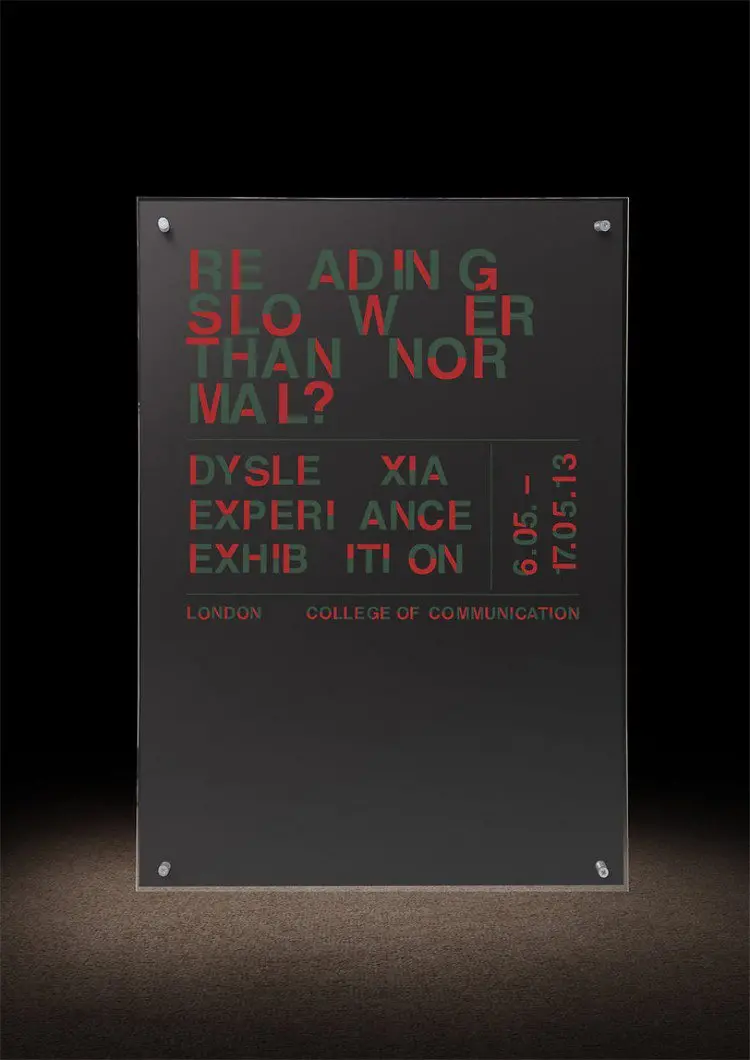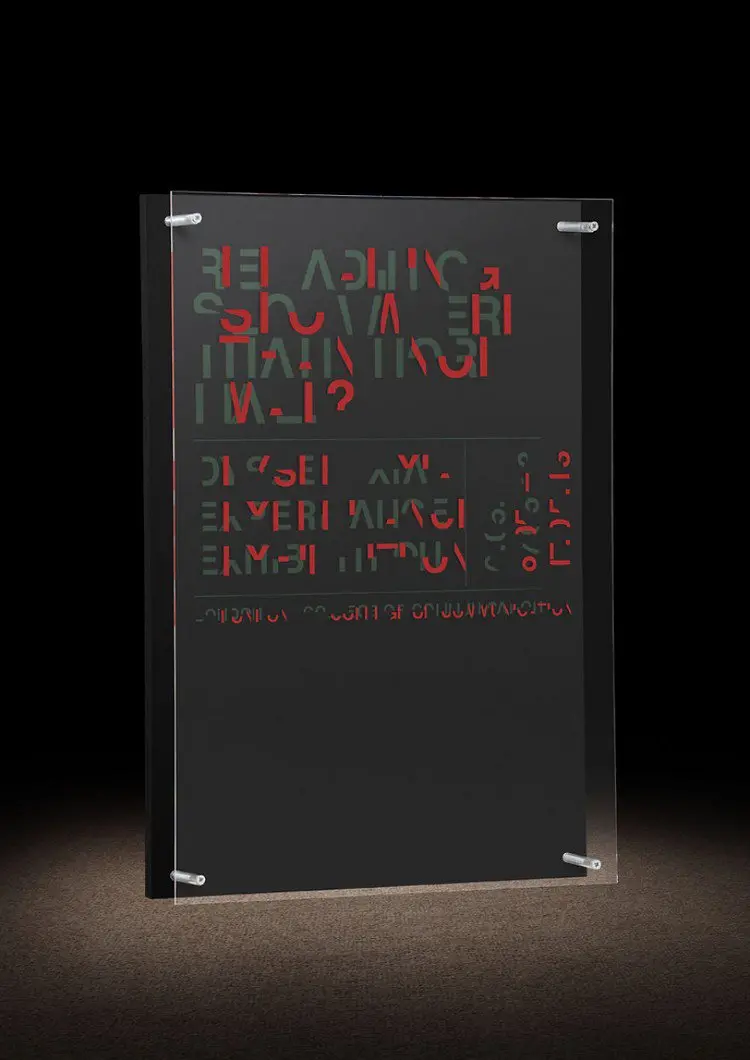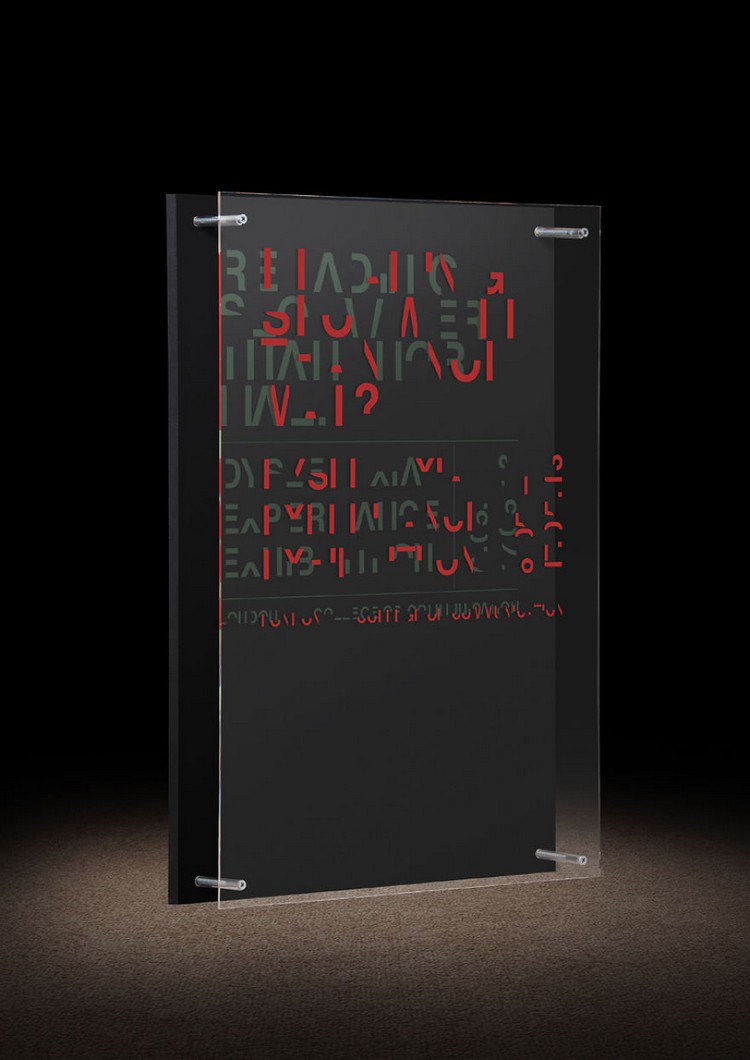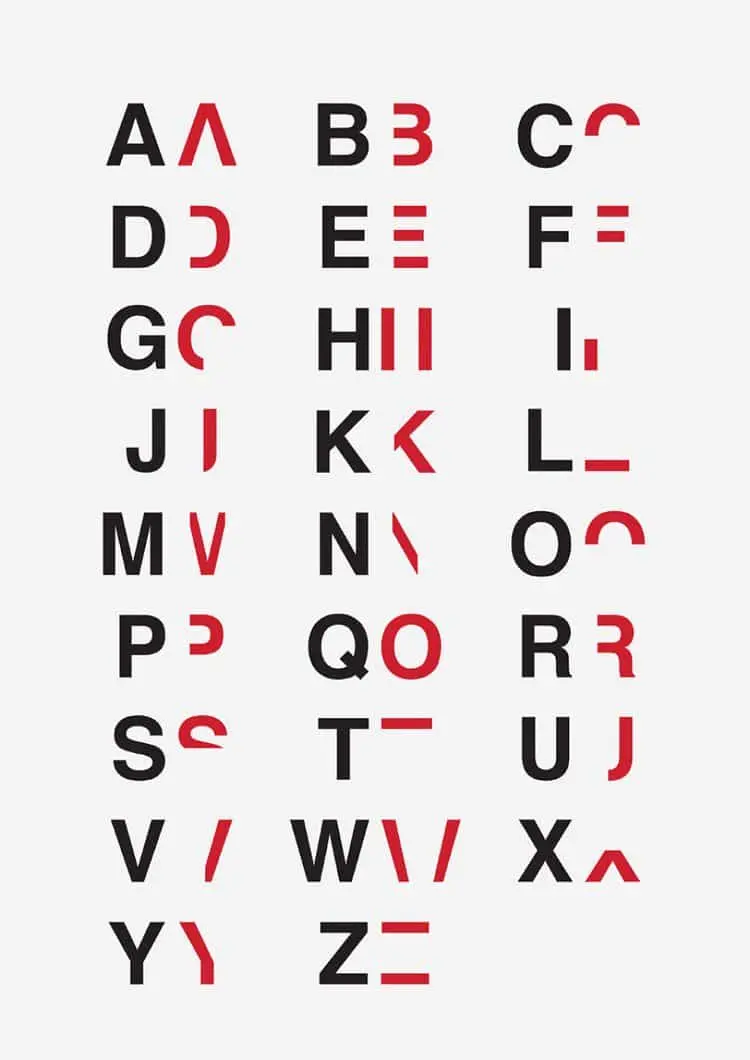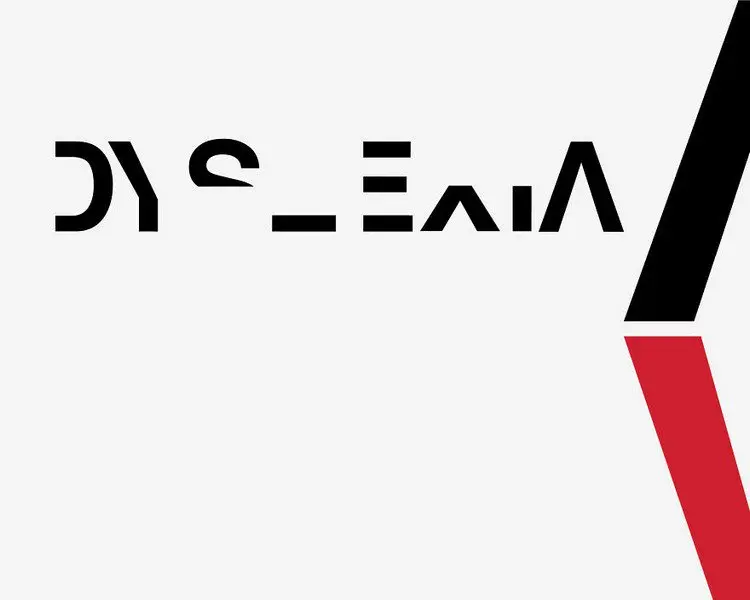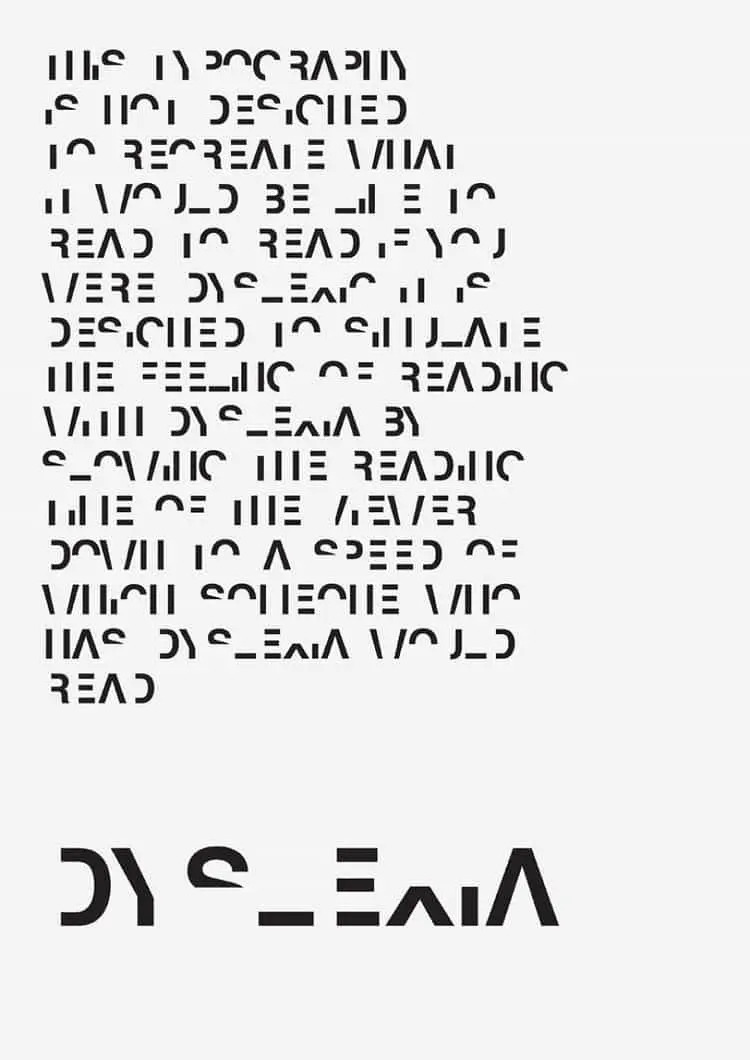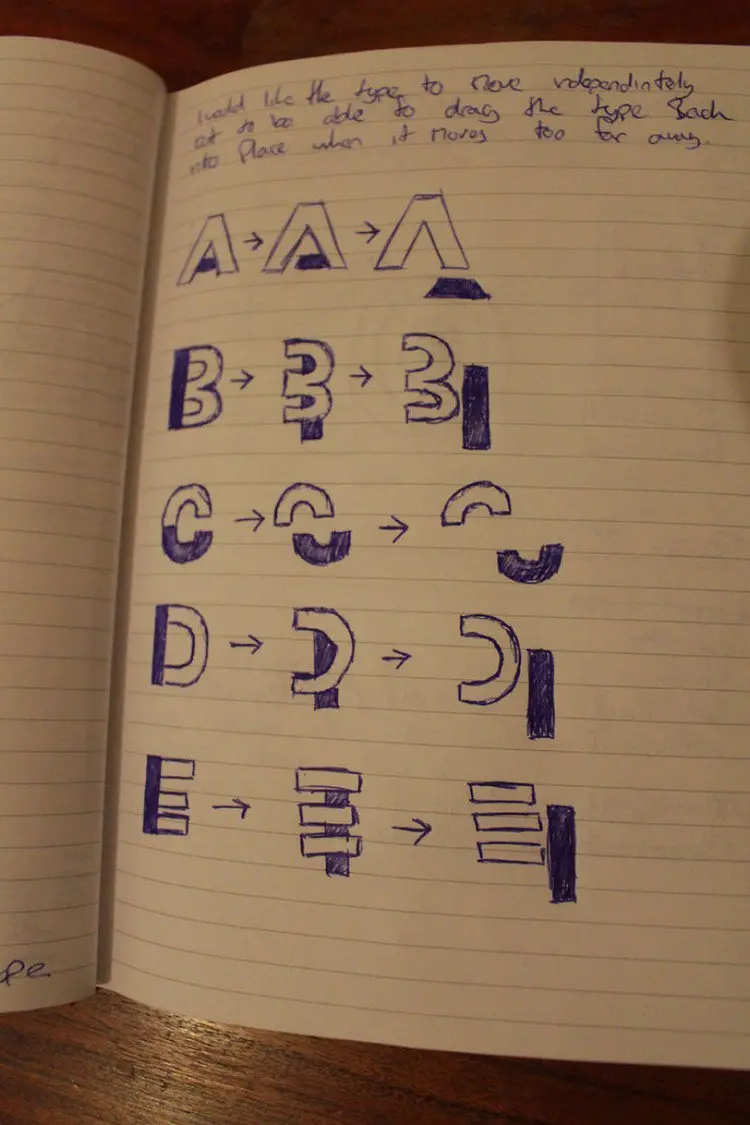
Daniel Britton Creates Dyslexic Typeface To Raise Awareness Of Dyslexia
Dyslexia Typeface
Daniel Britton, created the 'Dyslexic Typeface' while at The London College of Communication. Britton didn't need to undertake much research as he is dyslexic himself, and wanted to raise awareness of the much misunderstood condition. He was aware that, although there is a great deal of literature on the subject, nothing out there gave a person the actual feeling of being dyslexic. Britton remedied this by creating a whole new typeface which is virtually illegible, slowing the pace of the reader to that of a dyslexic individual. This way the reader can feel the complete frustration of reading in the same way someone with dyslexia does. In the future, Britton plans to create an educational pack for schools, which will educate both teachers and parents which can only be a good thing. Check out the photos below of Britton and his work, and see how difficult you find it to read his new typeface.